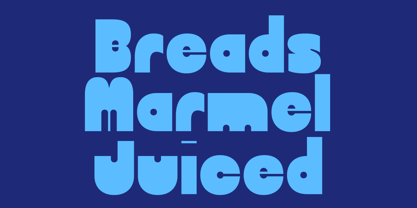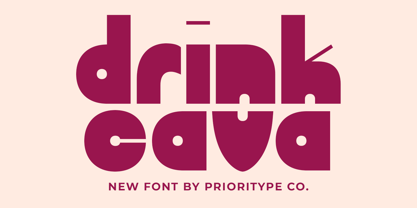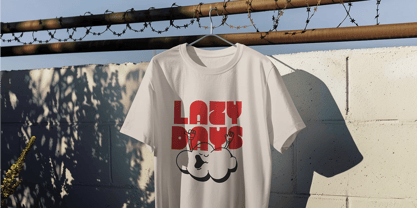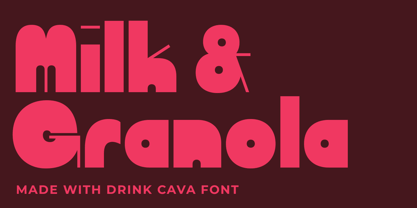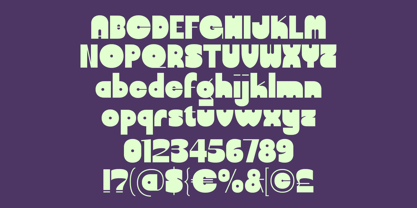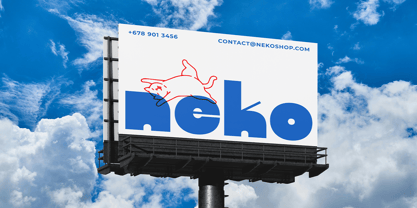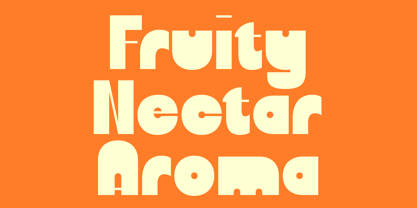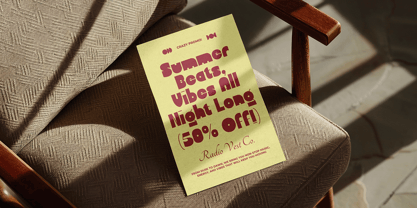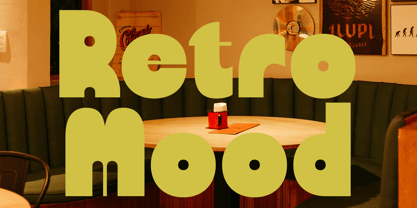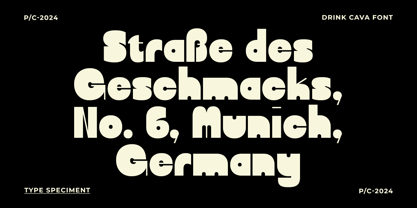
Drink Cava
Die Schriftfamilie Drink Cava wurde von Prio Nurokhim Aji entworfen und von Prioritype veröffentlicht. Drink Cava enthält 1 Stile. Mehr über diese Familie
Drink Cava
Introducing Drink Cava, a bold font with slim details on certain characters, making it daring and unique. Playful with a retro-modern vibe, it’s perfect for posters, branding, and logos.